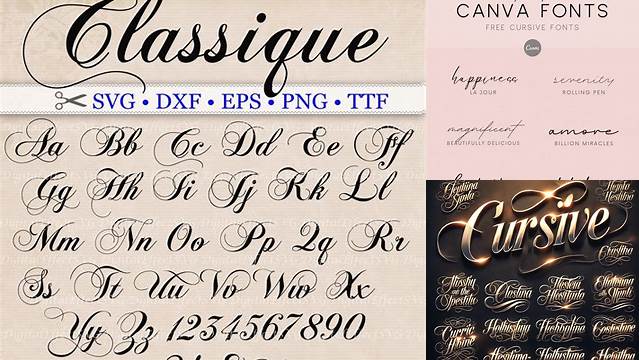
Elegant Cursive Fonts: Copy & Paste Guide
Hey guys! Ever wanted to add a touch of elegance to your texts? Well, you're in the right place! We're diving deep into the world of beautiful cursive fonts copy paste, making sure you can easily sprinkle them into your digital life. Let's get started!
Understanding Cursive Fonts
Before we jump into copying and pasting, let’s understand what cursive fonts are all about. Cursive fonts mimic handwriting, where letters are connected in a flowing manner. This creates an elegant and sophisticated look, perfect for invitations, logos, or simply making your social media posts stand out. Understanding the nuances of different cursive styles can help you choose the perfect font for your needs. Beautiful cursive fonts copy paste is more than just a trend; it's a way to express your style and personality. Think about how different fonts evoke different feelings. A delicate, thin cursive might be perfect for wedding invitations, while a bolder, more stylized cursive could be great for branding. Experiment with different options to find what resonates with you and your project. Also, consider the readability of the font. While some cursive fonts are incredibly beautiful, they might be difficult to read, especially in smaller sizes or longer texts. Prioritize clarity to ensure your message is easily understood. Ultimately, the best cursive font is one that balances aesthetics with functionality.
The Appeal of Cursive Typography
What makes cursive typography so appealing? It's the fluidity and grace! Unlike blocky, static fonts, cursive brings a sense of movement and artistry. This makes it ideal for designs that need a personal or handcrafted touch. Beautiful cursive fonts copy paste gives you access to this artistry without needing to be a professional calligrapher. The appeal of cursive typography lies in its ability to evoke emotions and create a distinct mood. It can convey elegance, sophistication, romance, or even playfulness, depending on the specific style and context. This versatility makes it a valuable tool for designers and creatives across various fields. Whether you're designing a wedding invitation, crafting a logo, or creating social media graphics, cursive fonts can add a touch of personality and visual interest that sets your work apart. Moreover, cursive fonts can help to establish a specific brand identity. By carefully selecting a cursive font that aligns with your brand's values and target audience, you can create a cohesive and memorable visual presence. In essence, cursive typography is more than just a design choice; it's a powerful way to communicate and connect with your audience on an emotional level.
Finding the Right Cursive Font
Finding the right cursive font can feel like searching for a needle in a haystack, but don’t worry! There are tons of resources available online. Websites like Google Fonts, DaFont, and Font Squirrel offer a wide variety of cursive fonts, many of which are free for personal or commercial use. When searching, consider the overall style and purpose of your project. Beautiful cursive fonts copy paste becomes easy once you've narrowed down your options. Start by defining the aesthetic you're aiming for. Do you want something classic and refined, or modern and edgy? Consider the context in which the font will be used. Is it for a formal invitation, a casual blog post, or a business logo? This will help you determine the appropriate level of formality and readability. Explore different categories of cursive fonts, such as calligraphy, script, and brush lettering. Each category has its own unique characteristics and can evoke different emotions. Don't be afraid to experiment and try out different fonts until you find the perfect match. Also, pay attention to the licensing terms of the font. Some fonts are free for personal use but require a commercial license for business purposes. Always respect the intellectual property rights of font designers.